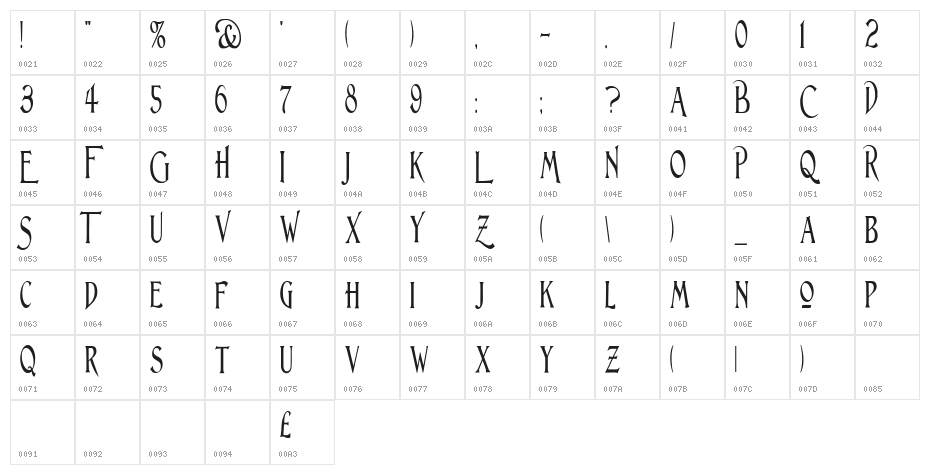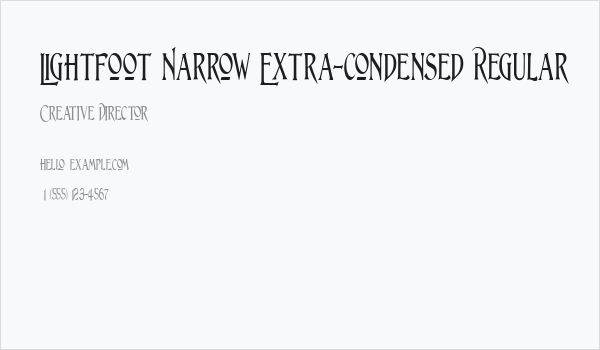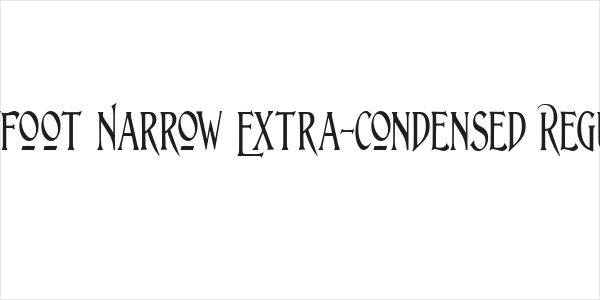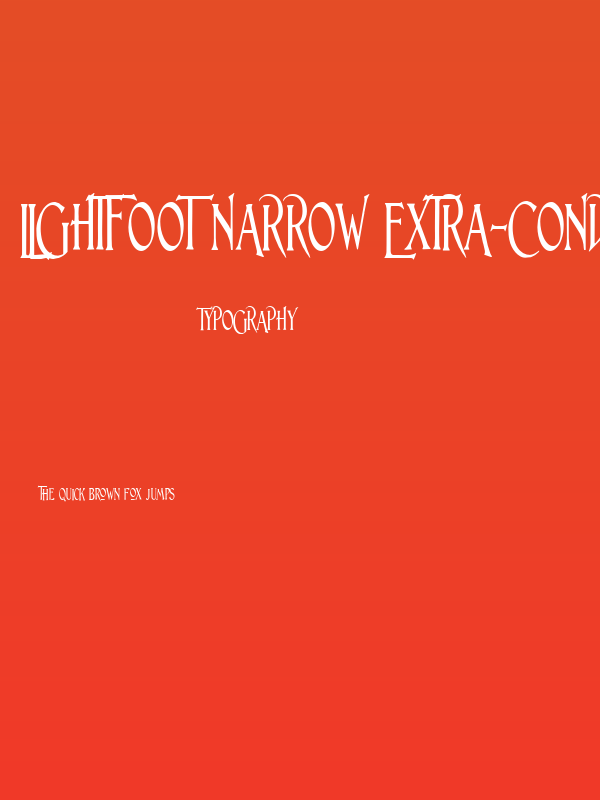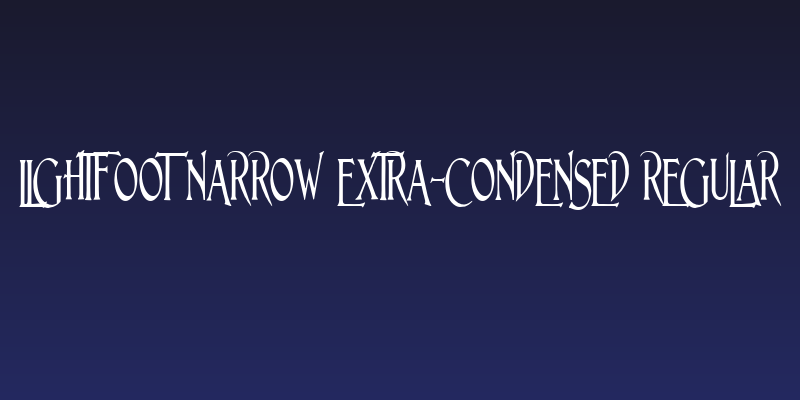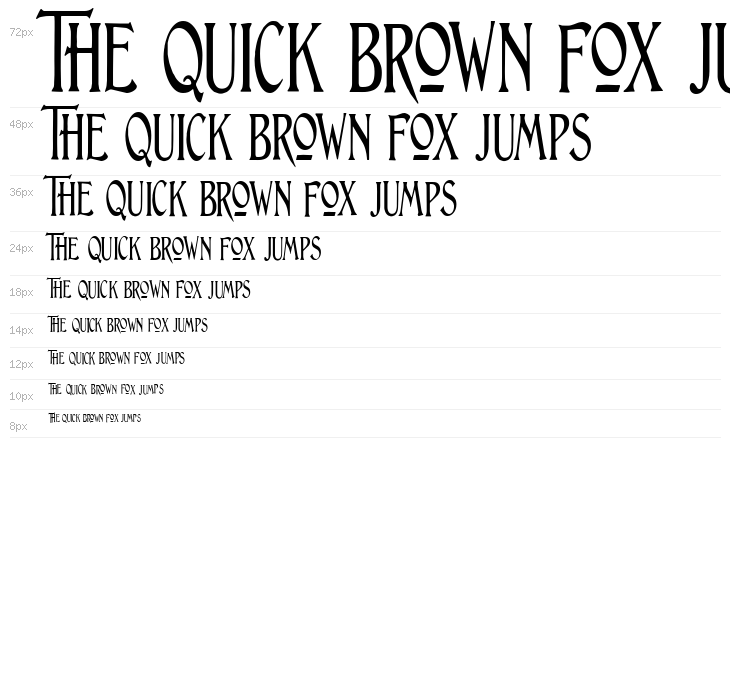
Lightfoot Narrow Extra-condensed Regular Font
Lightfoot Narrow Extra-condensed Regular Description
This font features a distinctive, narrow design with an extra-condensed appearance, giving it a unique and elegant look. The characters are tall and slender, with a slight flair at the ends of the strokes, adding a touch of sophistication. The uppercase letters are particularly striking, with their elongated forms and sharp angles. The lowercase letters maintain the same narrow style, ensuring consistency throughout the typeface. The numerals are clear and legible, matching the overall aesthetic. Special characters are well-integrated, providing versatility for various uses.
| Proposed Projects | Ideal for fashion magazines, luxury branding, and elegant invitations. |